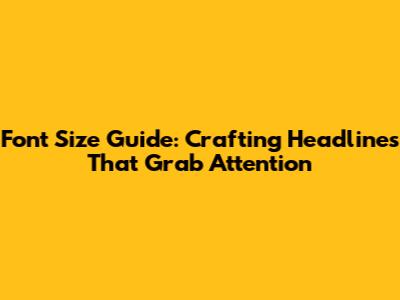
Font Size Guide: Crafting Headlines That Grab Attention
Hey guys! Ever wondered why some news headlines just pop while others fade into the background? A big part of it boils down to something seemingly small: font size. Yep, you heard it right! The size of the font you use for your headlines can make or break whether people actually read your awesome content. So, let's dive into the nitty-gritty of headline font sizes and how to make them work for you.
Why Headline Font Size Matters
Okay, so why should you even care about headline font size? Think of it this way: your headline is the first impression. It's the virtual handshake that either draws readers in or sends them scrolling. A well-chosen font size ensures readability, grabs attention, and sets the tone for your article. If your headline is too small, it'll get lost in the noise. Too big, and it'll look like you're shouting (and nobody likes being shouted at!). Font size impacts readability, visual hierarchy, and overall engagement.
Readability
First and foremost, the right font size makes your headline easy to read. No one wants to squint or strain their eyes just to figure out what your article is about. A readable headline means more people will actually read it. Aim for a font size that's large enough to be easily discernible but not so large that it overwhelms the reader. Different fonts have different characteristics, so testing is key. Some fonts appear larger than others even at the same point size. It's all about finding that sweet spot where clarity meets visual appeal.
Visual Hierarchy
Font size plays a crucial role in establishing a clear visual hierarchy on your page. Headlines should naturally stand out as the most important element, guiding the reader's eye and indicating the structure of the content. By using a larger font size for headlines, you immediately signal to the reader that this is the main topic being discussed. Subheadings can then use slightly smaller font sizes to denote supporting points and further divide the content into digestible chunks. This hierarchical structure not only improves readability but also enhances the overall user experience, allowing readers to quickly scan and understand the key takeaways from your article.
Engagement
Ultimately, the goal of any headline is to grab the reader's attention and entice them to click and read the full article. Font size is a powerful tool in achieving this. A well-sized headline commands attention and creates a sense of importance and urgency. It suggests to the reader that this is something worth paying attention to. By using font size strategically, you can significantly increase engagement and drive more traffic to your content. Just be sure to strike the right balance. A headline that's too large can come across as aggressive or overwhelming, while one that's too small may simply get overlooked.
Standard Font Sizes for News Headlines
Alright, let's get down to brass tacks. What are the standard font sizes for news headlines? Well, it depends on where your headline is appearing. Here's a quick rundown:
- Print Media: In newspapers and magazines, headlines often range from 24 to 72 points, depending on the importance of the story and the layout of the page.
- Online Articles: For websites, a headline font size of 30 to 40 pixels is generally a good starting point. However, this can vary depending on the overall design of your site.
- Blog Posts: Similar to online articles, blog post headlines typically fall in the 30 to 40 pixel range.
- Social Media: Social media headlines need to be even more eye-catching. Consider using slightly larger fonts, around 18 to 24 pixels, to stand out in crowded feeds.
Font Size in Print Media
In print media, the size of the headline font is a critical element that determines the visual impact and hierarchy of a newspaper or magazine page. Headlines in print need to be bold and attention-grabbing, often ranging from 24 to 72 points or even larger for significant front-page stories. The font size choice depends on several factors, including the story's importance, the available space on the page, and the overall design aesthetic of the publication. Larger font sizes are typically reserved for the most crucial and newsworthy articles, ensuring they immediately capture the reader's attention. Smaller font sizes are used for less prominent stories or subheadings that provide additional context. The interplay of different font sizes helps to create a visual structure that guides the reader through the content, making it easy to navigate and understand the key information at a glance.
Font Size in Online Articles and Blog Posts
For online articles and blog posts, the considerations for headline font size are slightly different but equally important. On the web, readability and user experience are paramount. Headline font sizes generally range from 30 to 40 pixels, providing a good balance between visibility and clarity. However, this is just a starting point, and the ideal font size can vary based on the website's overall design, the font type used, and the device on which the content is being viewed. Responsive design plays a crucial role, as headlines need to adapt seamlessly to different screen sizes, from large desktop monitors to small smartphone displays. It's also important to consider the line height and letter spacing to ensure the headline remains legible and visually appealing. A well-chosen font size helps the headline stand out from the body text and other page elements, drawing the reader's eye and encouraging them to delve deeper into the article.
Font Size in Social Media
In the fast-paced world of social media, where attention spans are notoriously short, headlines need to be particularly impactful. Social media feeds are crowded with posts vying for users' attention, so a headline must be able to cut through the noise and grab the reader's interest instantly. As a result, slightly larger font sizes, typically ranging from 18 to 24 pixels, are often used to make headlines stand out. Visual appeal is also crucial, so the choice of font and color can play a significant role in attracting attention. Bold fonts, contrasting colors, and eye-catching graphics can all help to make a headline more noticeable in a busy social media feed. Additionally, the headline must be concise and to the point, as users are likely to scroll past anything that looks too long or complex. The goal is to convey the essence of the article or post in a few words, enticing the reader to click and learn more.
So there you have it! A deep dive into the world of headline font sizes. Remember, it's not just about picking a random number. It's about creating headlines that grab attention, improve readability, and ultimately, get people to read your awesome content. Happy headline crafting, folks!